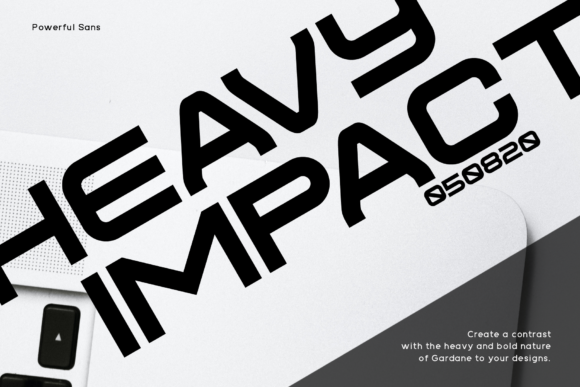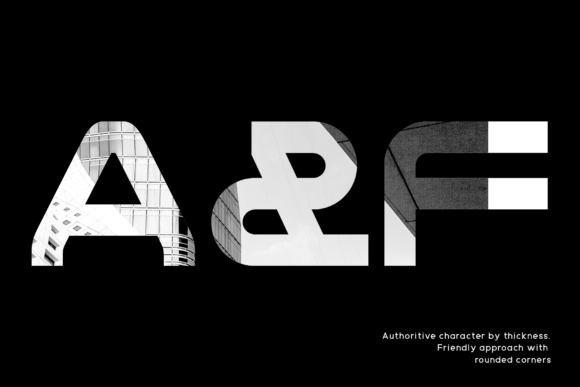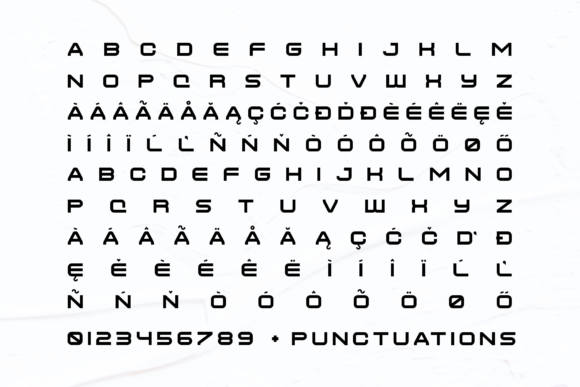
Gardane Font: Elevate Your Designs with a Minimal and Neat Sans Serif
In the world of typography, a font can make or break a design. It’s the foundation upon which the entire visual identity is built. For designers and crafters, finding the perfect font that complements their creative vision can be a daunting task. However, if you’re looking for a versatile and stylish sans serif font, look no further than Gardane Font. In this article, we’ll explore the features and benefits of Gardane Font, and how it can elevate your designs to the next level.
What is Gardane Font?
Gardane Font is a minimal and neat sans serif font designed to be effortlessly paired with a wide range of projects. Its clean lines, simple shapes, and uncluttered aesthetic make it an excellent choice for designers seeking a modern and sophisticated look. Whether you’re working on a branding project, a website, or a craft, Gardane Font is sure to make your creative ideas stand out.
Key Features of Gardane Font
- Minimalist Design: Gardane Font boasts a sleek and minimalist design, making it perfect for designs that require a clean and simple look.
- Sans Serif: As a sans serif font, Gardane Font is ideal for digital and print designs, offering a modern and approachable feel.
- Versatility: Gardane Font can be paired with a wide range of projects, from branding and advertising to web design and crafting.
- Ease of Use: With its straightforward and uncomplicated design, Gardane Font is easy to read and use, making it perfect for body text and headlines.
Benefits of Using Gardane Font
So, why choose Gardane Font for your next design project? Here are just a few benefits of using this versatile font:
- Enhance Readability: Gardane Font’s clear and simple design ensures that your text is easy to read, making it perfect for body text and long-form content.
- Boost Brand Identity: With its modern and sophisticated look, Gardane Font can help elevate your brand’s visual identity and make it more memorable.
- Increase Versatility: Gardane Font’s versatility means you can use it across a wide range of projects, from digital designs to print materials.
- Save Time: With Gardane Font, you can quickly and easily create professional-looking designs without spending hours searching for the perfect font.
Using Gardane Font in Your Designs
So, how can you incorporate Gardane Font into your designs? Here are a few ideas to get you started:
- Branding and Logo Design: Use Gardane Font to create a modern and sophisticated logo that reflects your brand’s values and personality.
- Website Design: Pair Gardane Font with a bold color scheme and simple design elements to create a clean and user-friendly website.
- Print Design: Use Gardane Font in your print designs, such as brochures, flyers, and business cards, to add a touch of modern elegance.
- Crafting and DIY Projects: Add a personal touch to your crafting and DIY projects with Gardane Font, perfect for making signs, labels, and more.
In conclusion, Gardane Font is a versatile and stylish sans serif font that’s perfect for designers and crafters looking to elevate their designs. With its minimalist design, ease of use, and versatility, Gardane Font is sure to become a staple in your font library. Whether you’re working on a branding project, website design, or crafting and DIY project, Gardane Font is the perfect choice to make your creative ideas stand out. So why wait? Download Gardane Font today and take your designs to the next level!